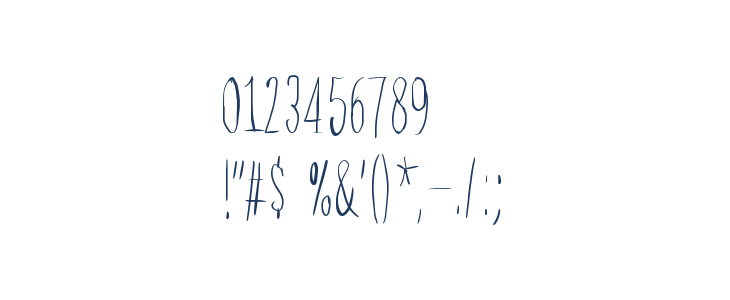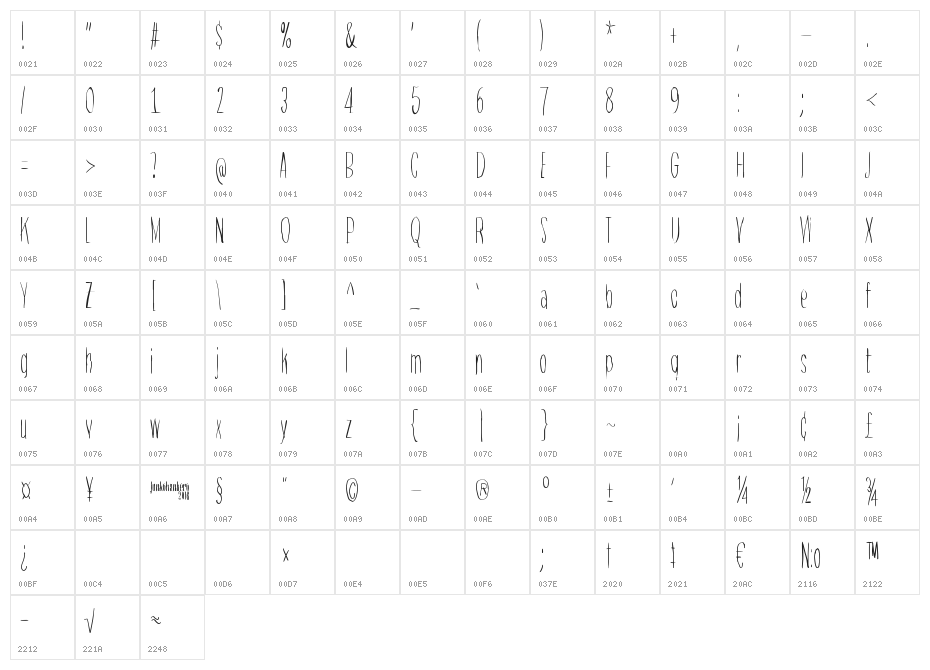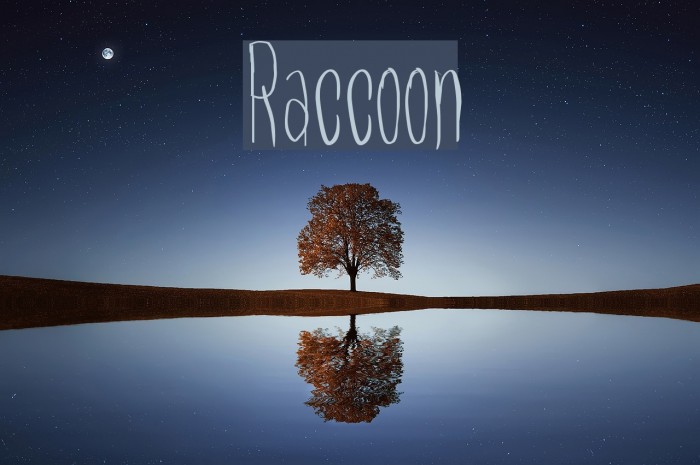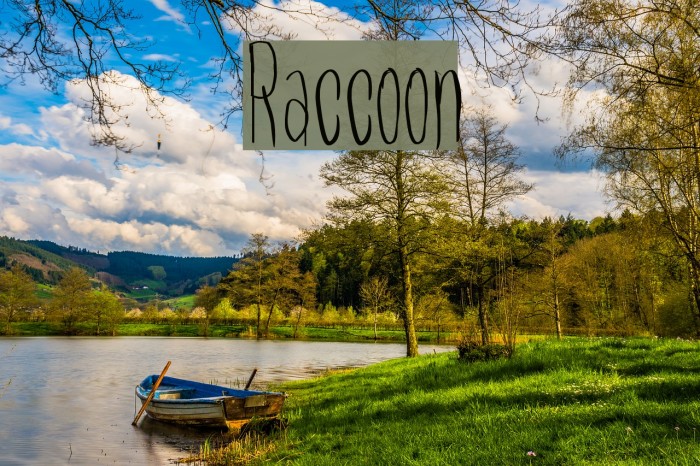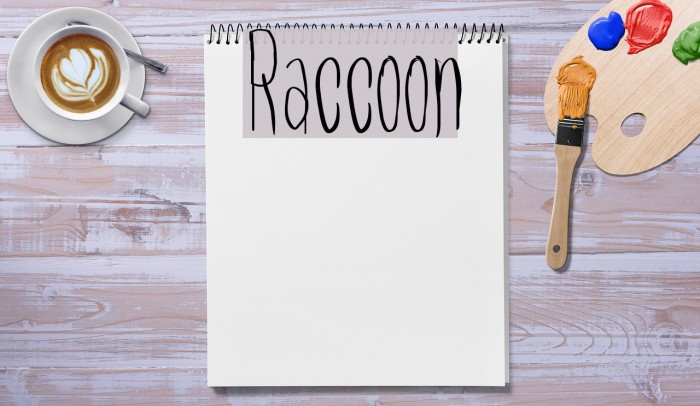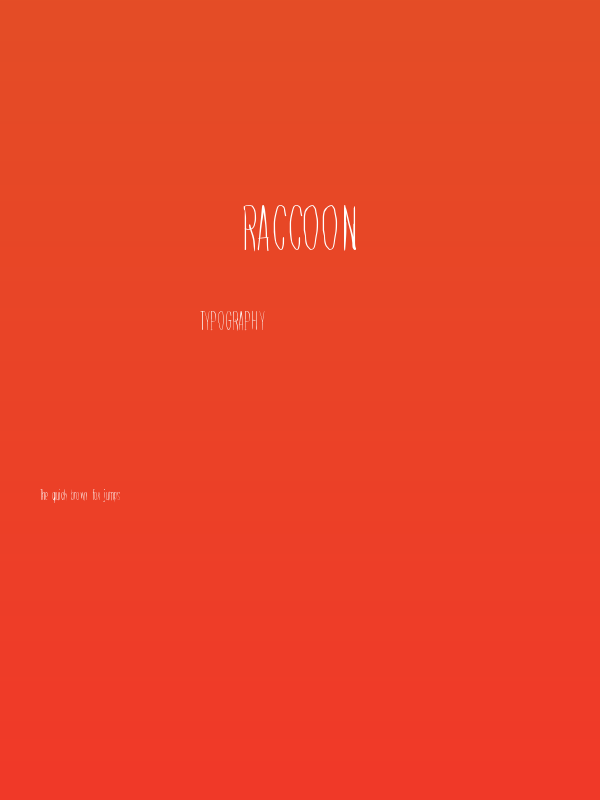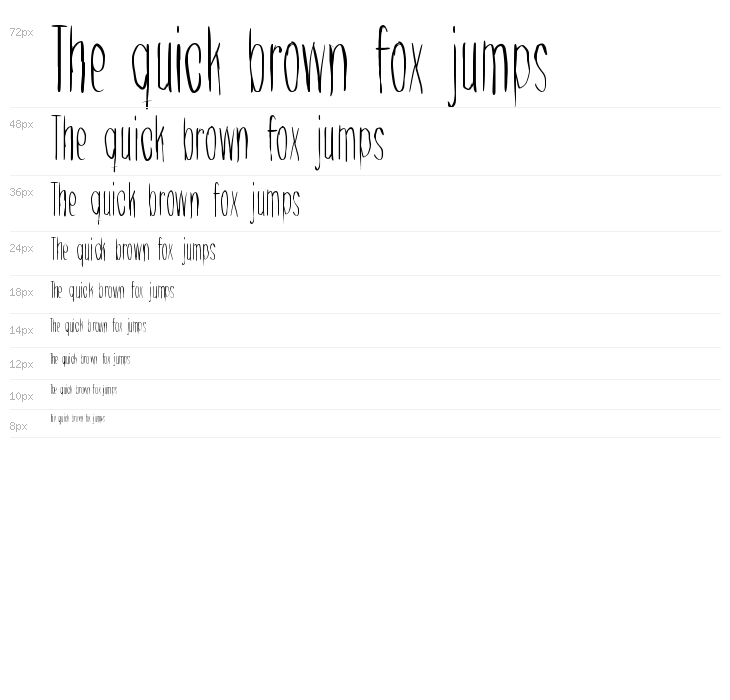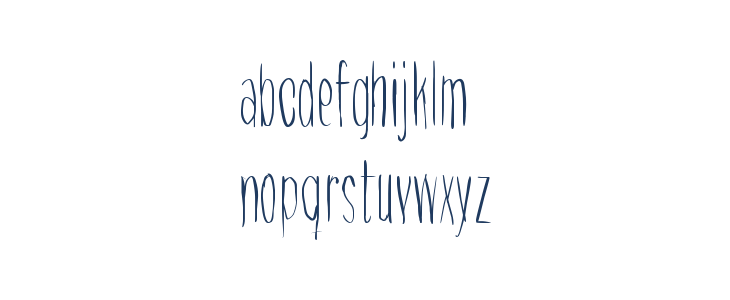
Raccoon Font
Raccoon Description
This font features a whimsical and playful design with tall, narrow characters that have a hand-drawn appearance. The strokes are uneven, giving it a casual and artistic feel. The uppercase letters are elongated, while the lowercase letters maintain a consistent height, adding to the quirky charm. Numbers and special characters follow the same playful style, making the font suitable for creative projects. The overall look is informal and friendly, perfect for adding a touch of personality to any design.